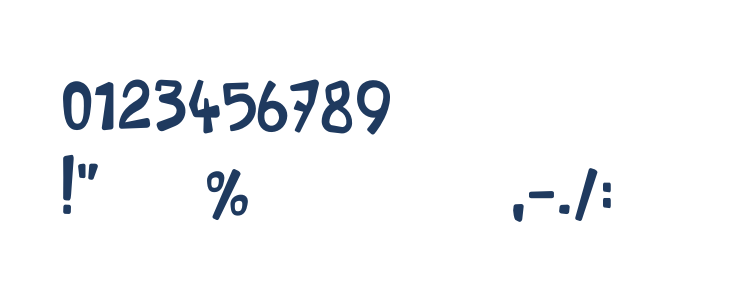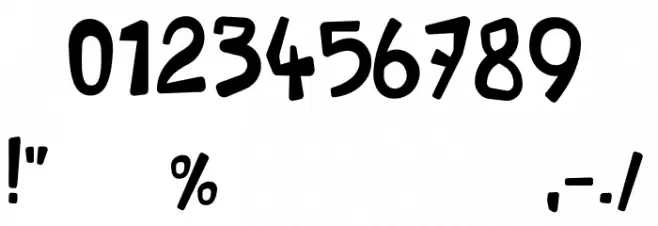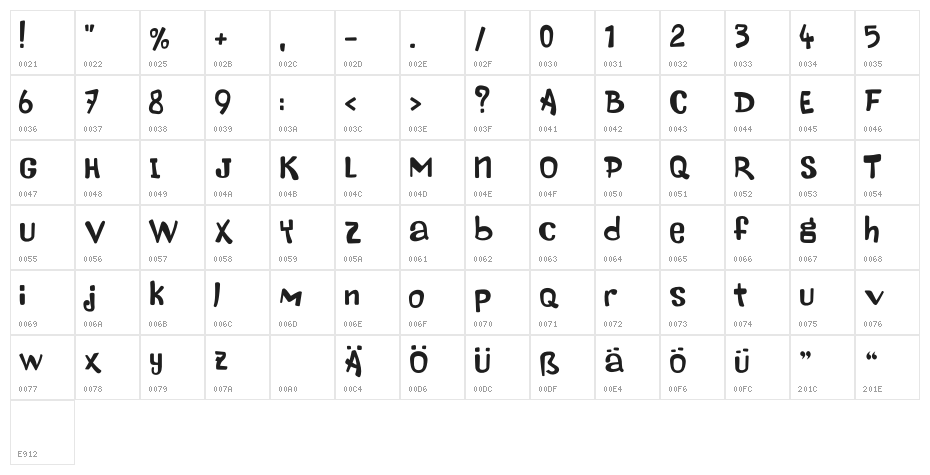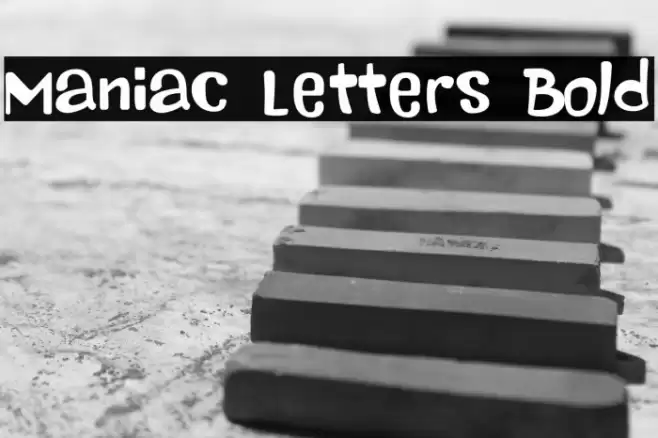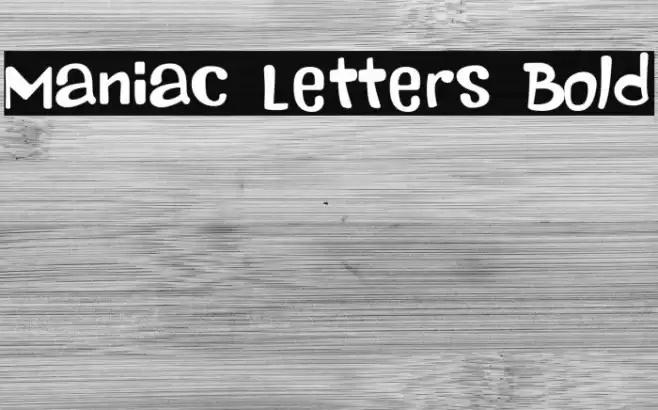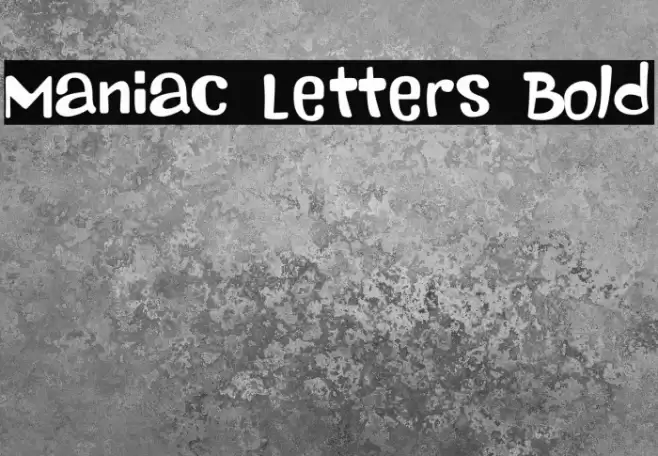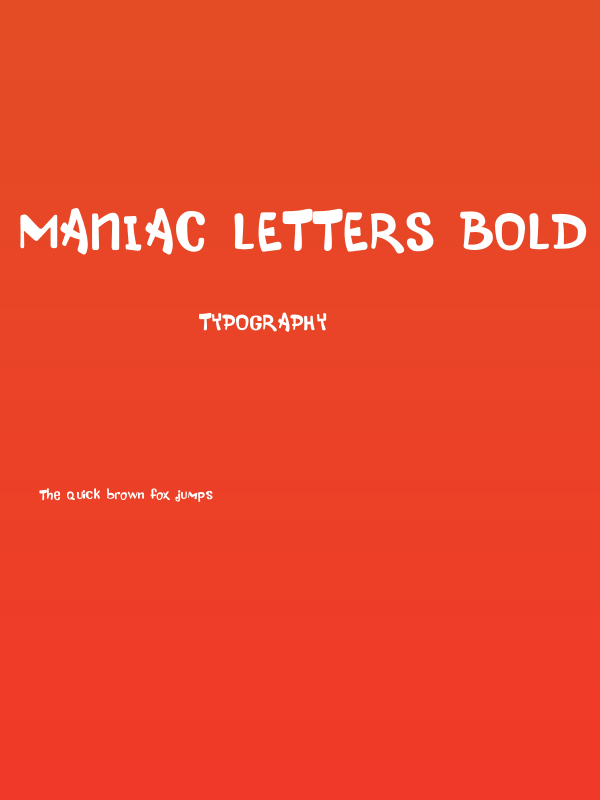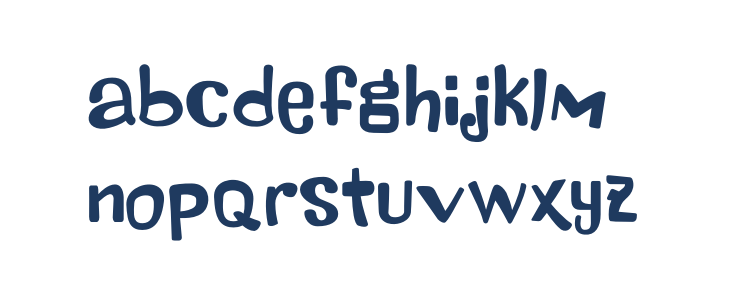
Maniac Letters Bold Font
Maniac Letters Bold Description
This font features a playful and bold design with a hand-drawn aesthetic. The characters have a whimsical, uneven quality, giving them a lively and energetic feel. The strokes are thick and rounded, which adds to the font's boldness and makes it stand out. The letters are slightly irregular, contributing to a casual and informal appearance. This style is perfect for projects that require a fun and engaging look, such as children's books, posters, or creative branding. The font's unique character shapes and bold presence make it ideal for capturing attention and conveying a sense of joy and creativity.
| Overall Style | Playful, Energetic, Casual |
| Use Case | Headlines, Posters, Creative Branding |
| Proposed Projects | Ideal for children's books, playful posters, creative branding, and eye-catching headlines. |